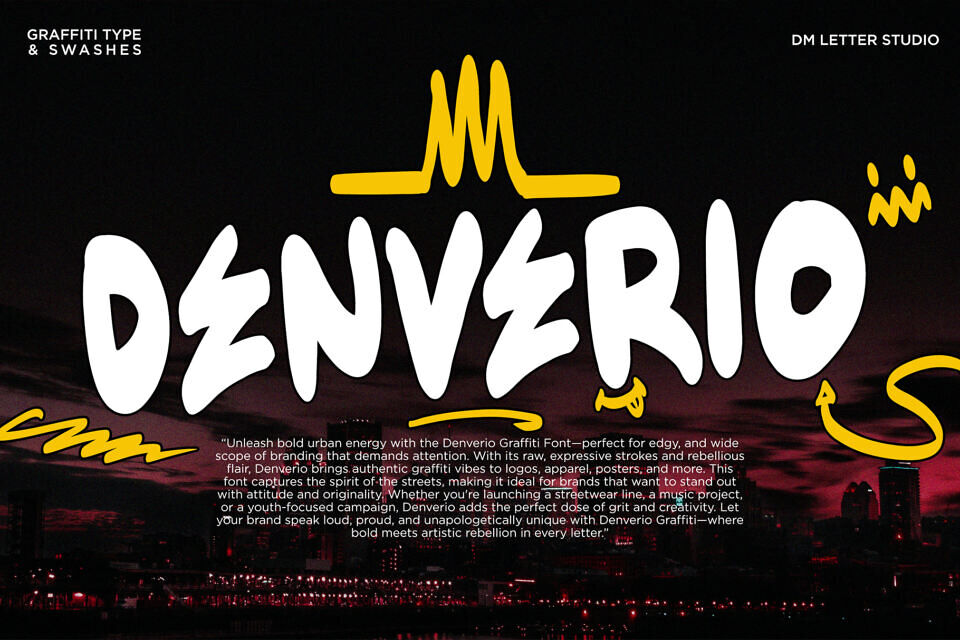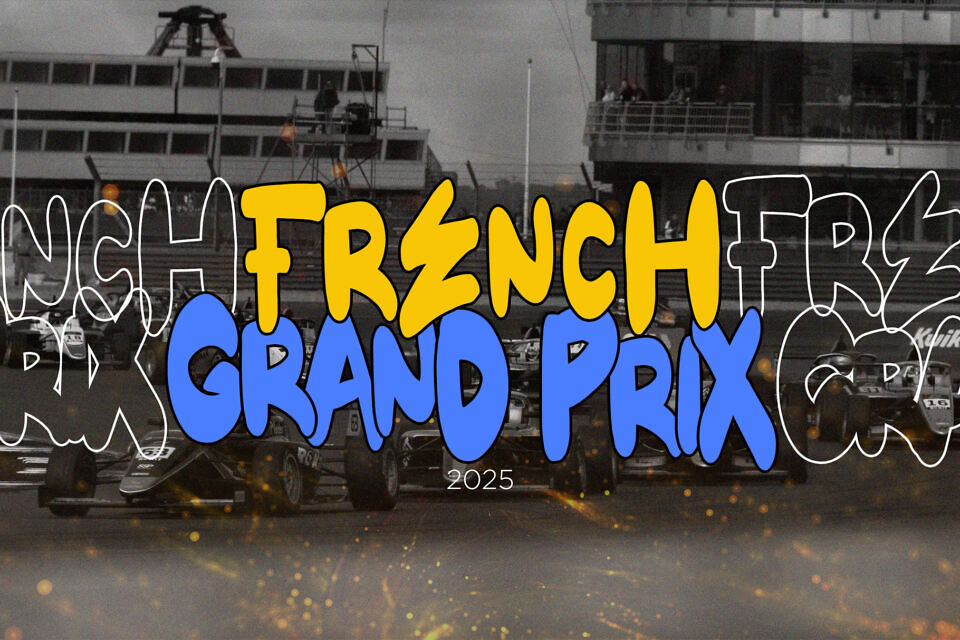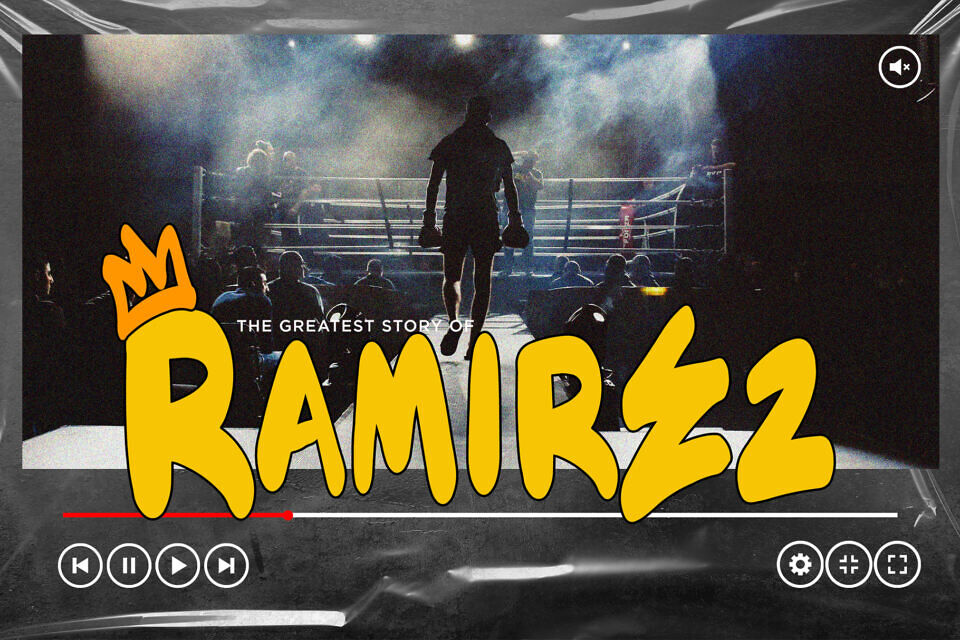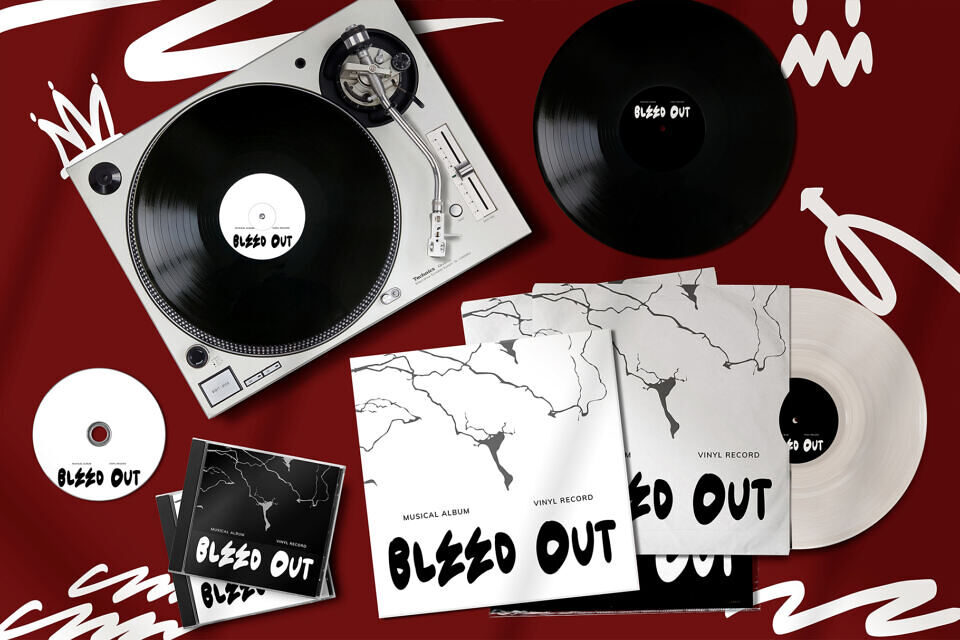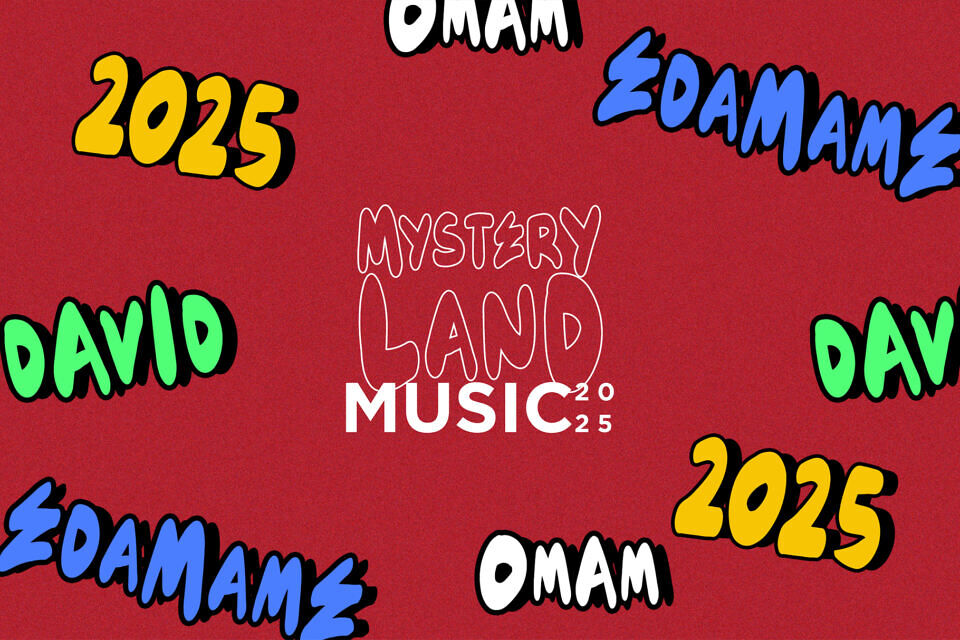
Denverio is a bold, street-inspired graffiti font that oozes urban attitude and untamed energy. With chunky, expressive strokes and a rebellious personality, Denverio brings raw street culture into logos, apparel, posters, and branding.
The font comes with wild swashes that add even more grit and flair to your design, perfect for those who want to make a statement that’s loud, proud, and unforgettable.